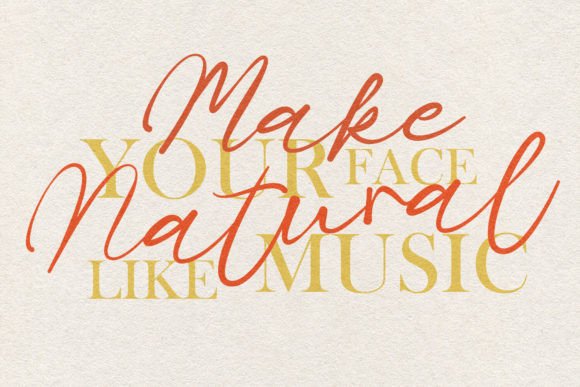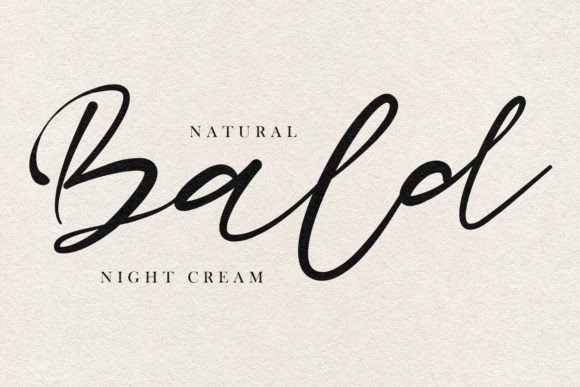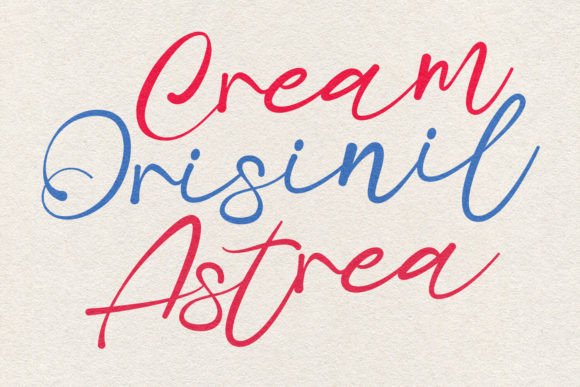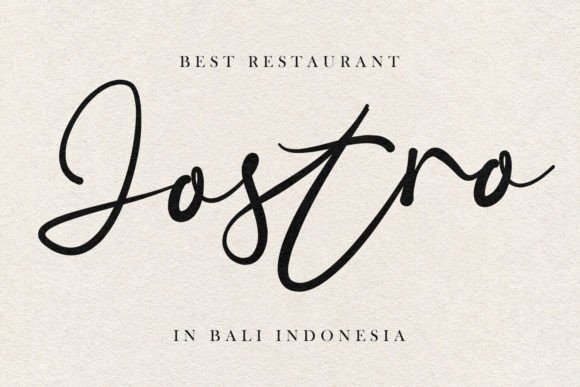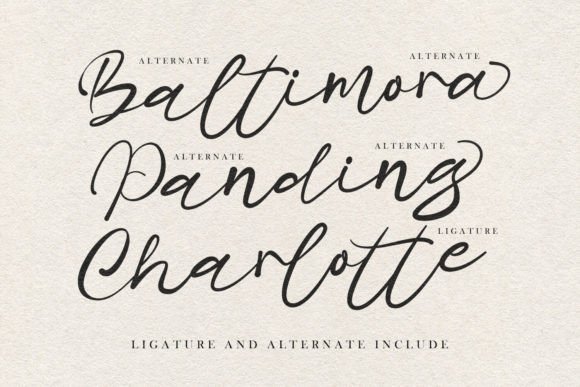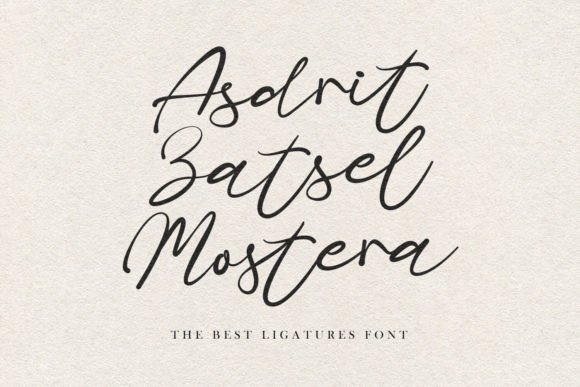
Discover the Joy of Handwritten Style with Ashitamilang Font
Have you ever been scribbling down ideas in a notebook, letting the pen flow freely as your imagination runs wild? It’s a moment of pure creativity, where nothing seems to matter but the thought or idea you’re trying to capture. For designers, this feeling is what makes Ashitamilang Font so special. This fun and casual font is designed to mimic the look and feel of handwritten letters, giving your text a relaxed and friendly style that’s perfect for notes, invitations, or any creative project.
Ashitamilang Font is more than just a pretty face; it’s a valuable tool for designers who want to add a personal touch to their work. Its easy flow and friendly style make it a great choice for anyone looking to create a unique and eye-catching design. Whether you’re a seasoned pro or just starting out, Ashitamilang Font is sure to inspire your next creative project.
Ashitamilang Font Key Features
- Unique Characteristics: The Ashitamilang Font features a unique blend of traditional and modern design elements, making it an ideal choice for designers and typographers looking for a distinctive font.
Ashitamilang Font Review
Overall, I’m quite impressed with the Ashitamilang Font. Here are a few things that caught my attention:
- ✨ Unique aesthetic: The font has a distinct, modern look that’s sure to grab attention. It’s perfect for designers looking to add a touch of sophistication to their projects.
- ✨ Versatility: The font comes in a range of weights and styles, making it suitable for various applications, from headings to body text.
- ✨ Legibility: Despite its unique design, the font is surprisingly easy to read, even at smaller sizes.
However, there are a few areas where the font falls short:
- ⚠️ Limited language support: The font primarily supports Latin-based languages, which might limit its use for non-Latin scripts.
- ⚠️ No italic or oblique styles: While the font offers various weights and styles, it lacks italic and oblique versions, which might be a drawback for designers who rely on these styles.
Overall, I’d say the Ashitamilang Font is a solid choice for designers who want a unique, modern look. While it has some limitations, its versatility and legibility make it a great addition to any design arsenal.
The Ashitamilang font is commonly used for:
- Designing logos and brand identities.
- Creating social media graphics and ads.
- Designing flyers and brochures.
Alternatives to Ashitamilang Font
Bebas Neue is a modern sans-serif font designed for headlines and titles. It is a popular alternative to Ashitamilang Font due to its clean and minimalist design. Bebas Neue is ideal for use in digital products, logos, and branding materials.
Comparison: Bebas Neue is more geometric and has a more modern feel compared to Ashitamilang Font, which has a more traditional and classic look.
Montserrat is a sans-serif font designed for urban environments and is perfect for use in digital products, signage, and wayfinding systems. It is a good alternative to Ashitamilang Font for designers who want a modern and versatile font.